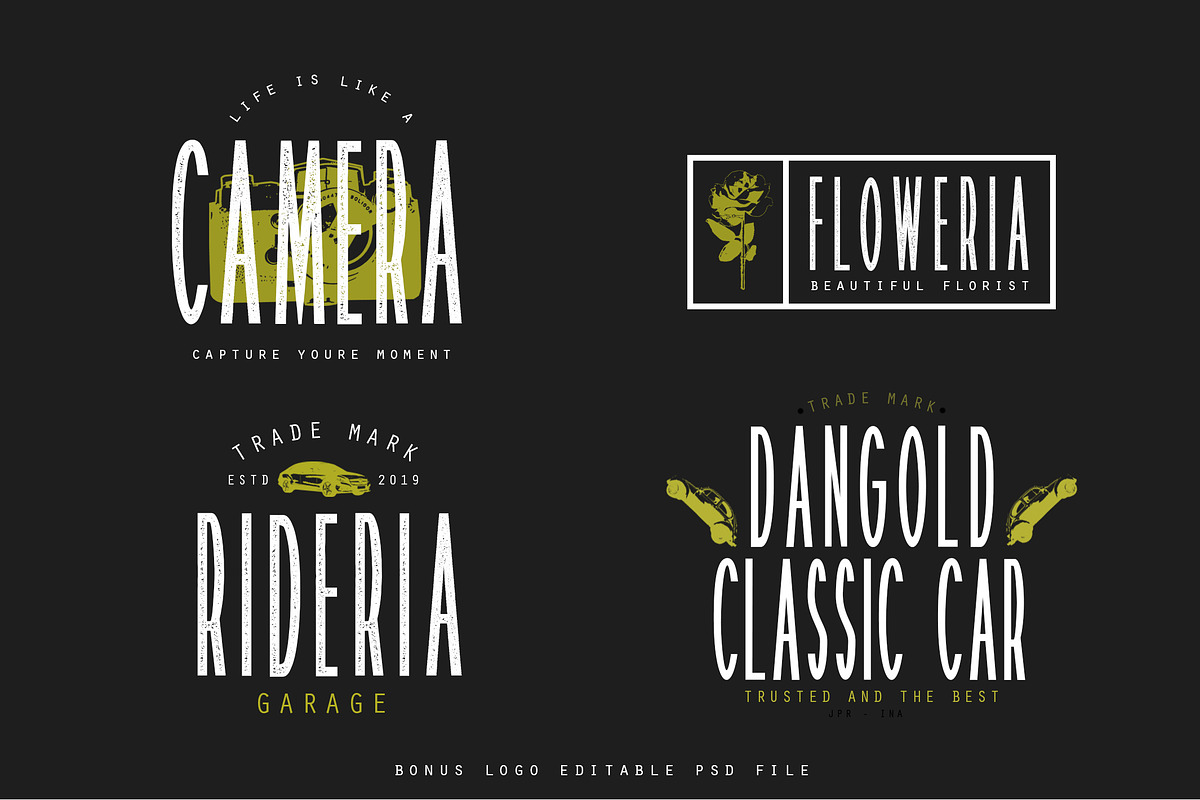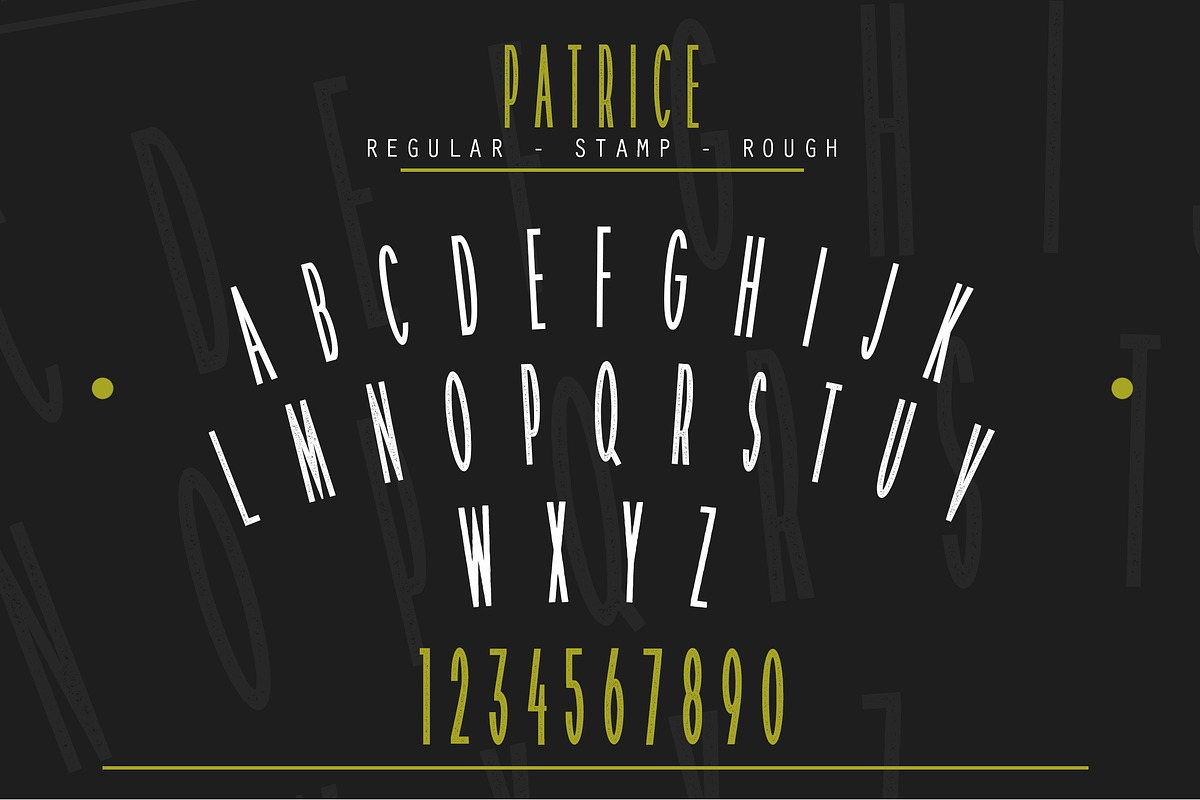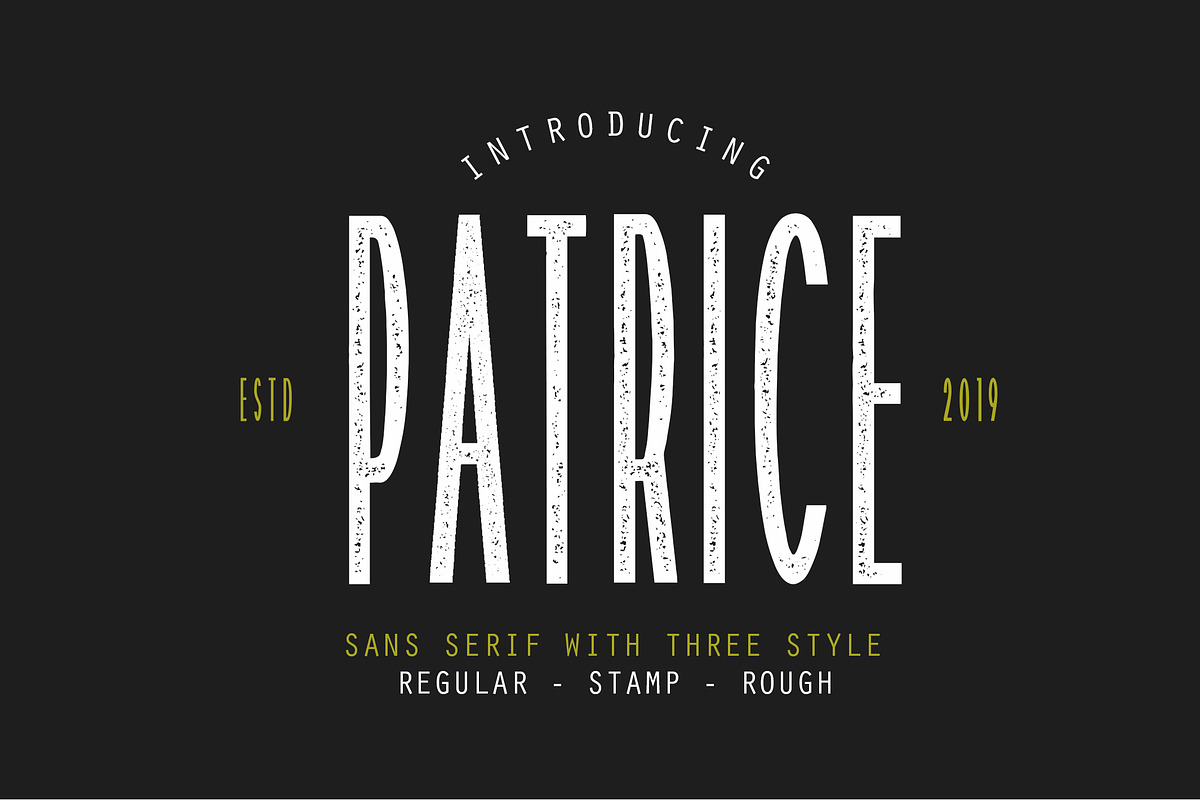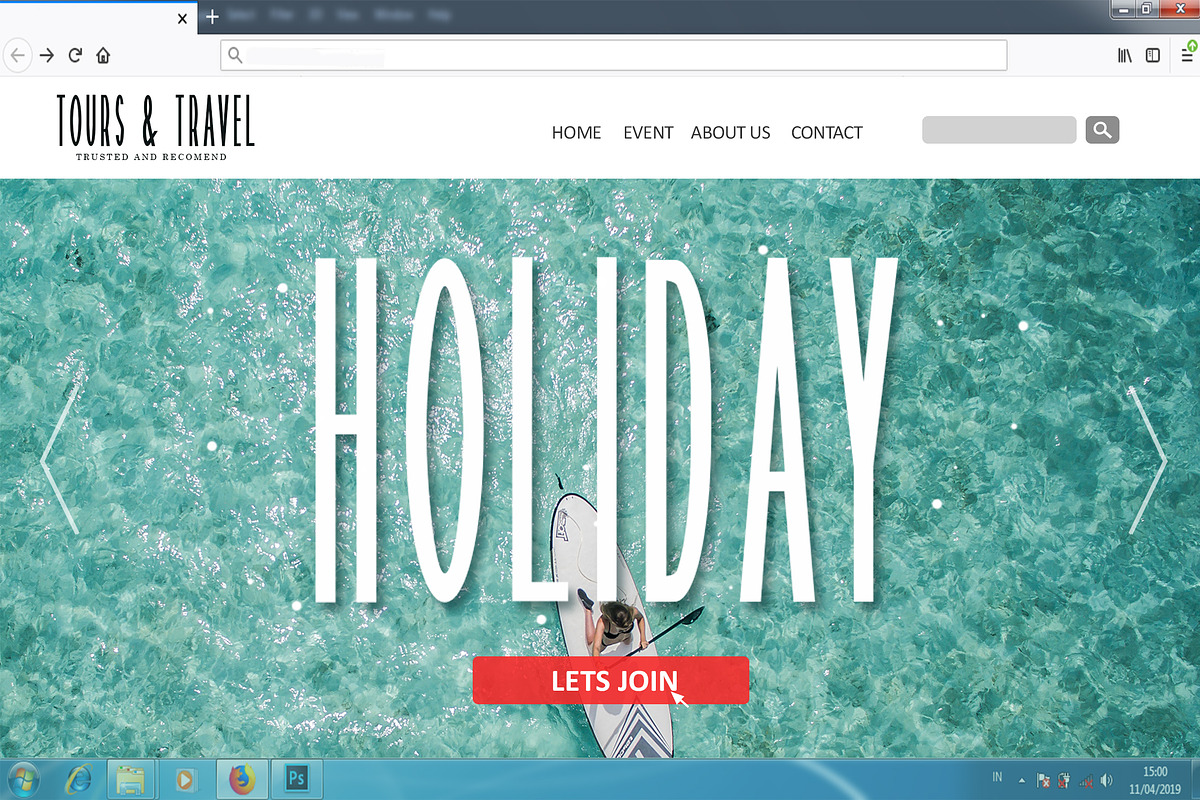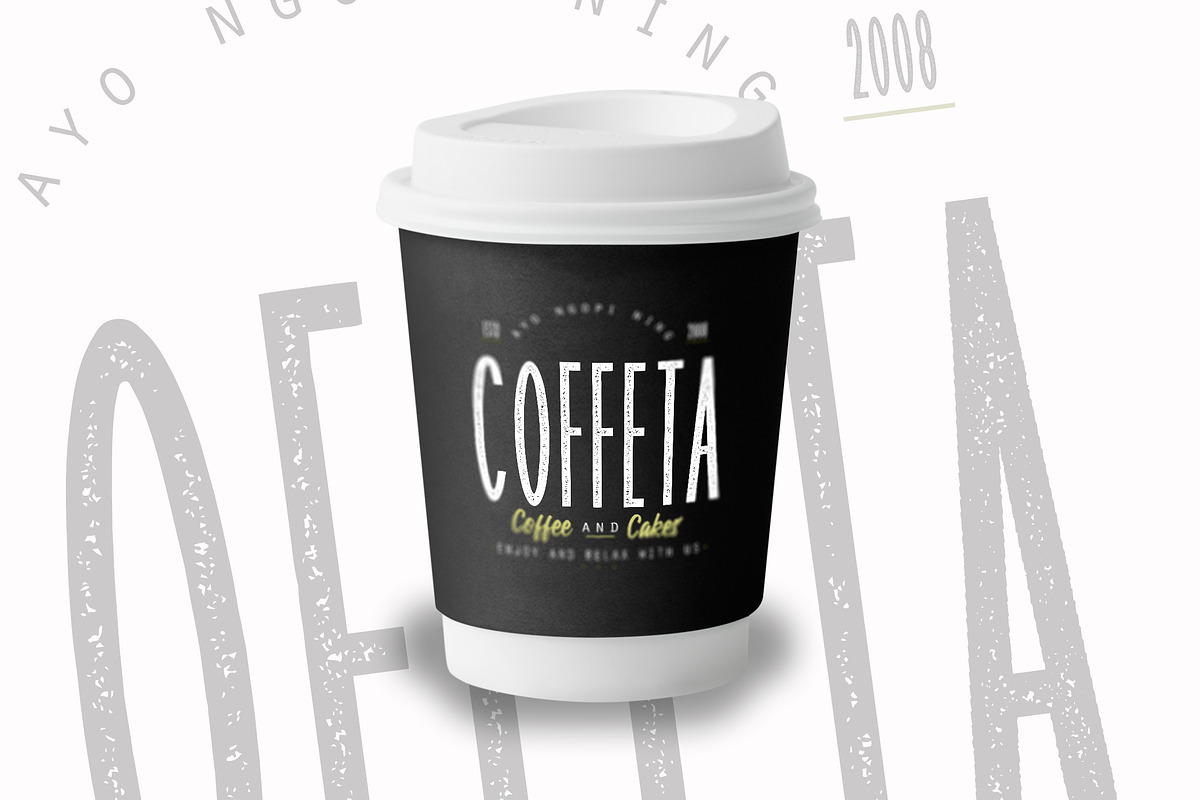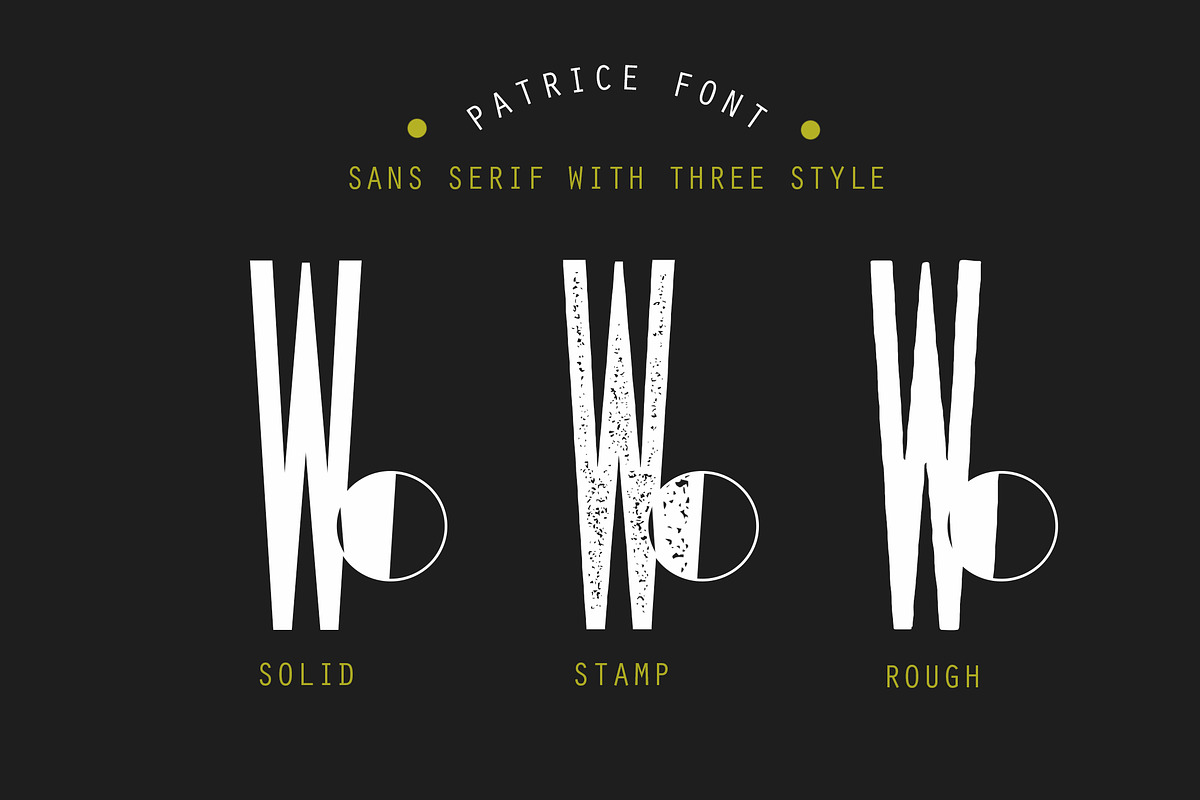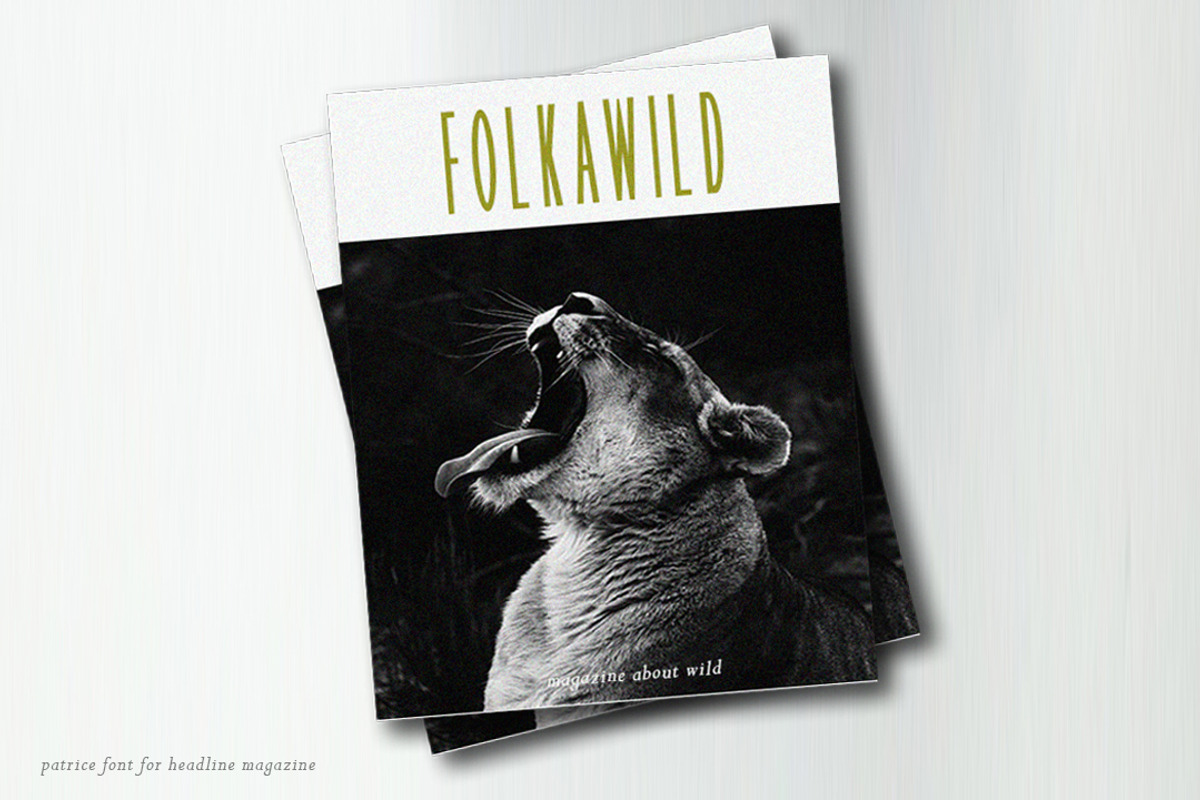
Patrice | Sans Serif Font
Let me introduce you. we launched our newest font patrice sans serif font with 3 styles, regular, rough and stamp. This font is suitable for your design projects such as logos, magazine headlines, and so on.
Feature: All Uppercase, Number, Symbol, support Multilingual.